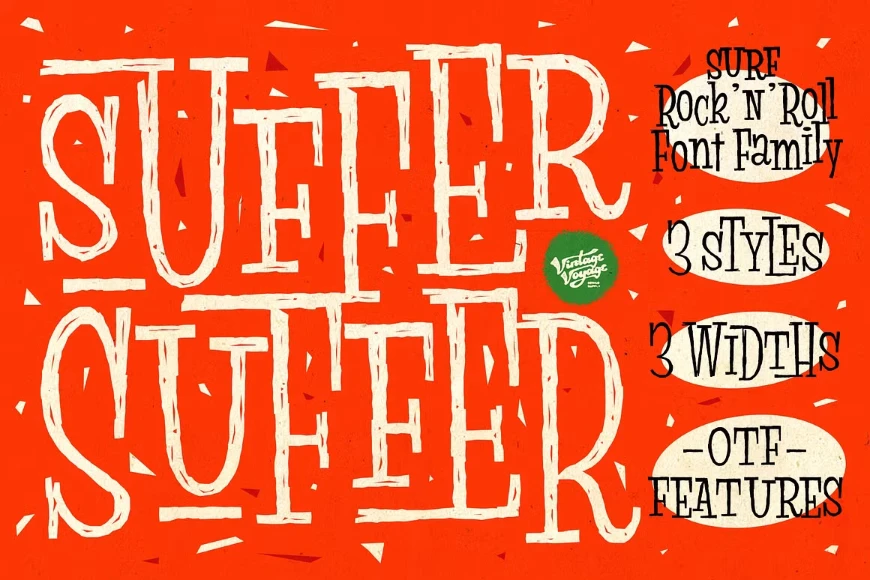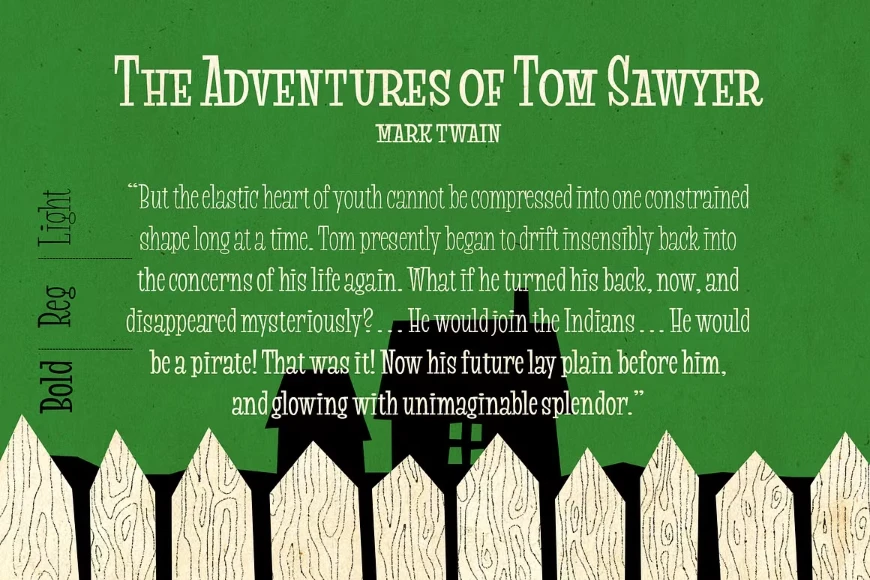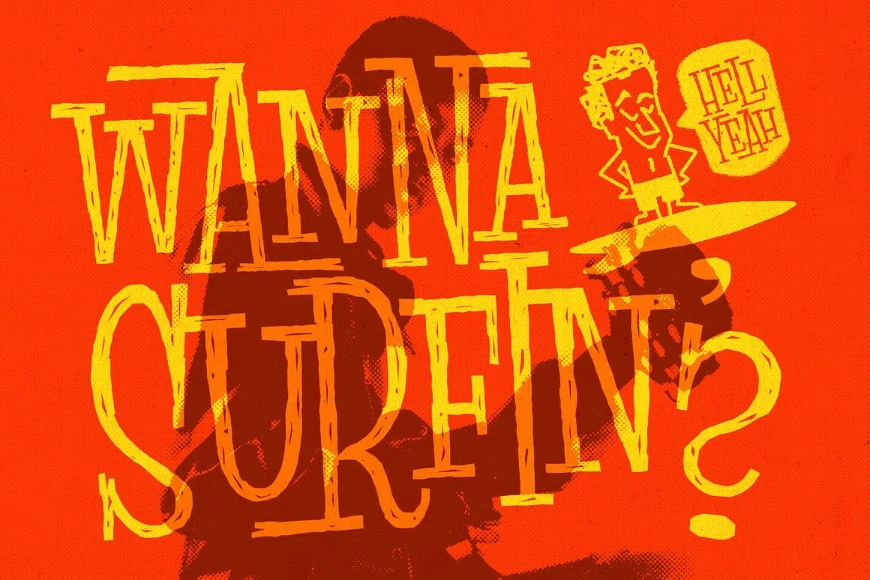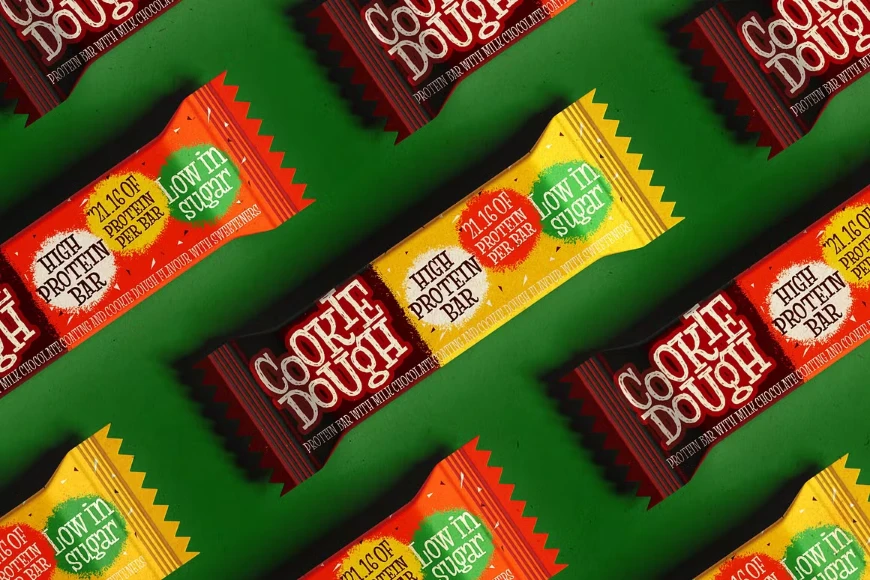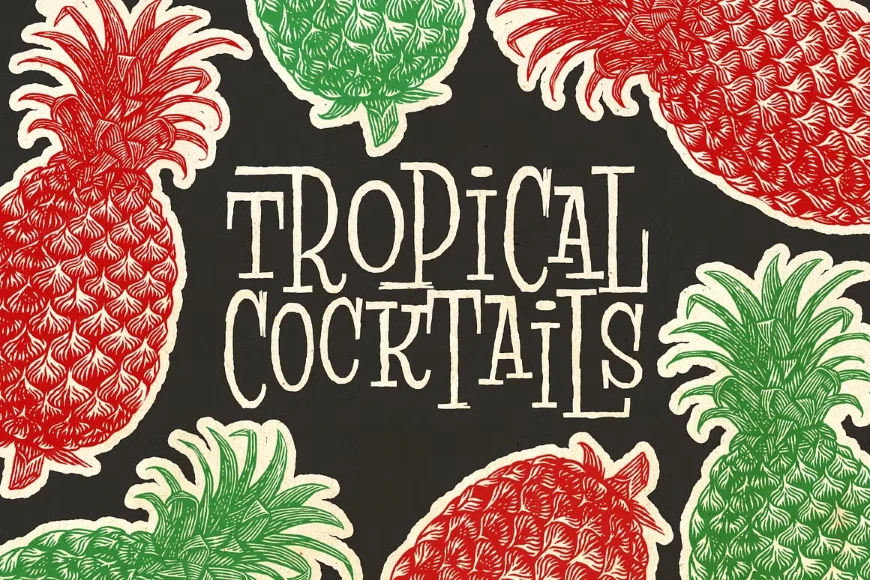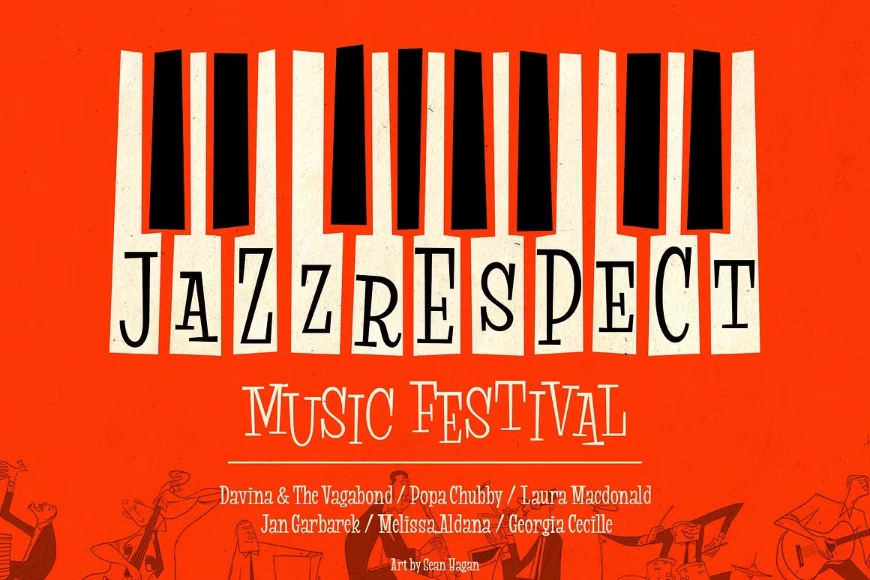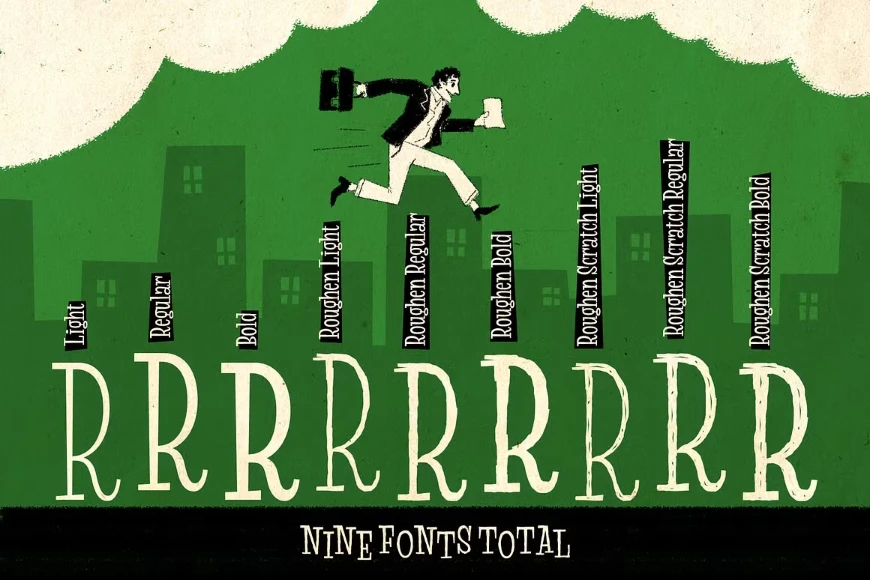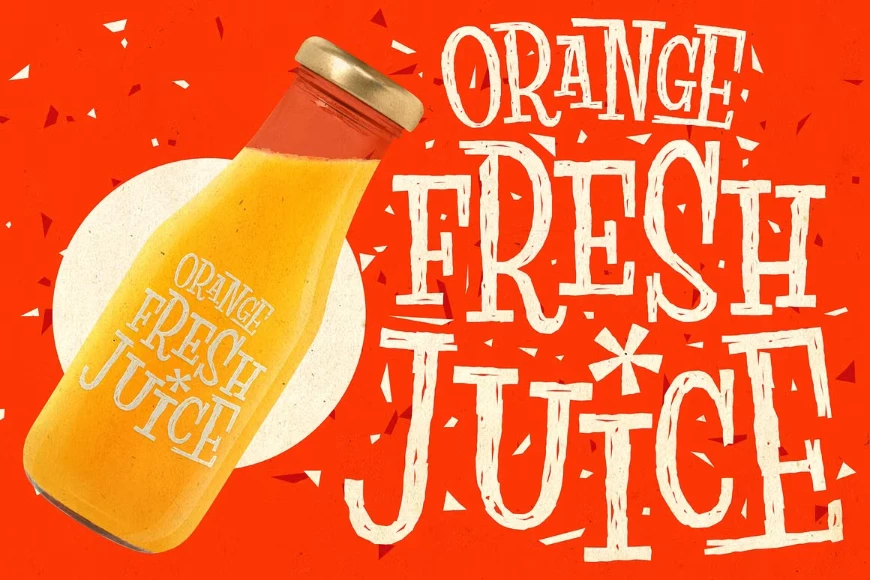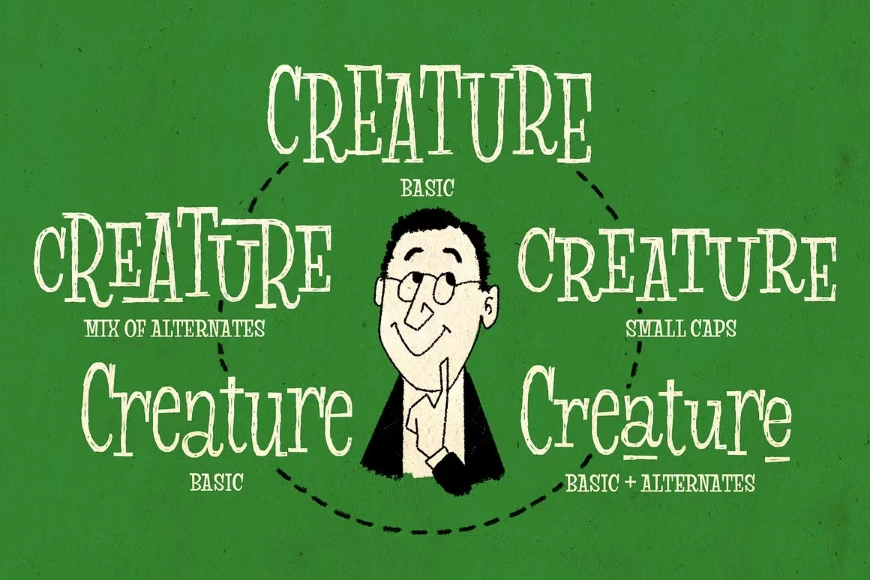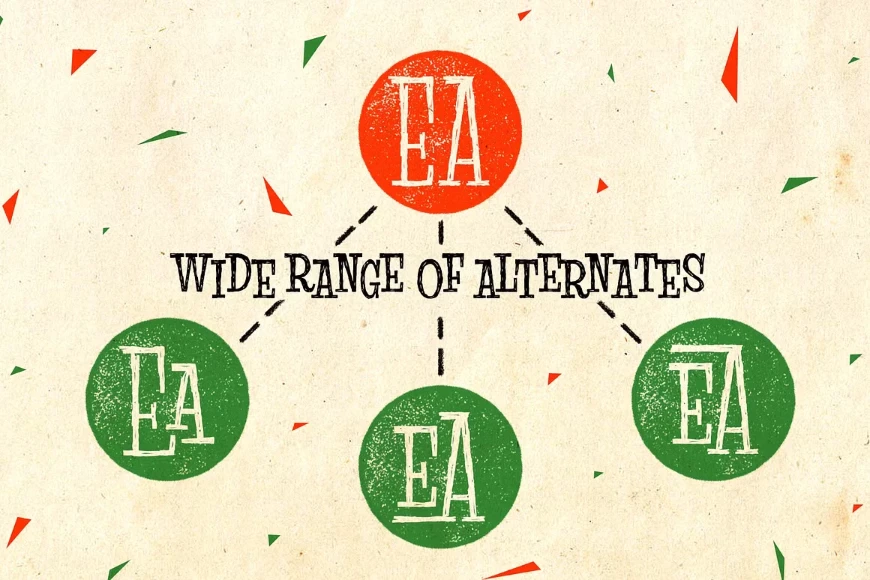
Suffer
From Vintage Voyage Design
Do you hear that sound of Dick Dale’s guitar? Here it is! Vintage Voyage Design’s Suffer with retro rock vibes! Alternates will give you a handwritten mood and an absolutely unique typographic style. Straight outta vintage vinyl covers and surf gig posters into your font collection! We’ve all missed the sun, so grab this family and get some summer vibes. No matter what your next design project — a tiki t-shirt collection, summer rock festival, greeting cards, or a header for a zine.
Suffer Light
Suffer Rough Light
Suffer Scratch Light
Suffer Regular
Suffer Rough Regular
Suffer Scratch Regular
Suffer Bold
Suffer Rough Bold
Suffer Scratch Bold
Stylistic Set 8
Stylistic Set 9
Stylistic Set 10